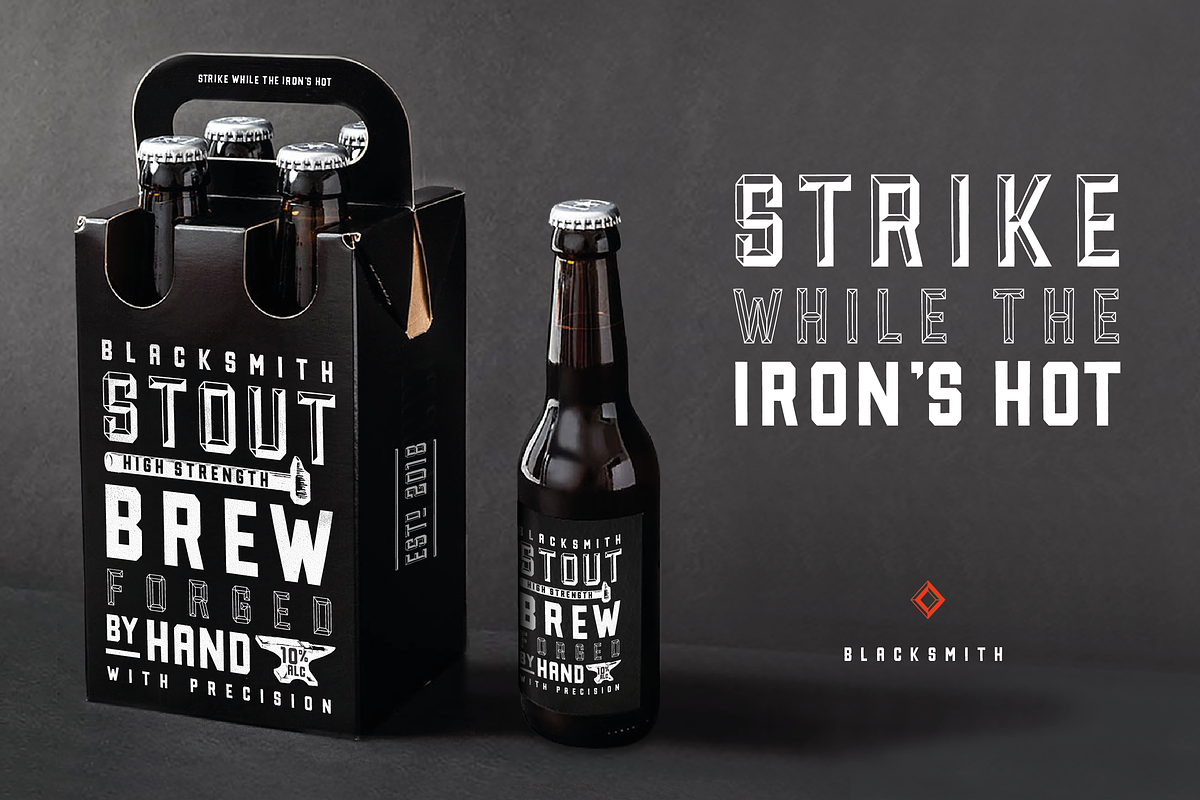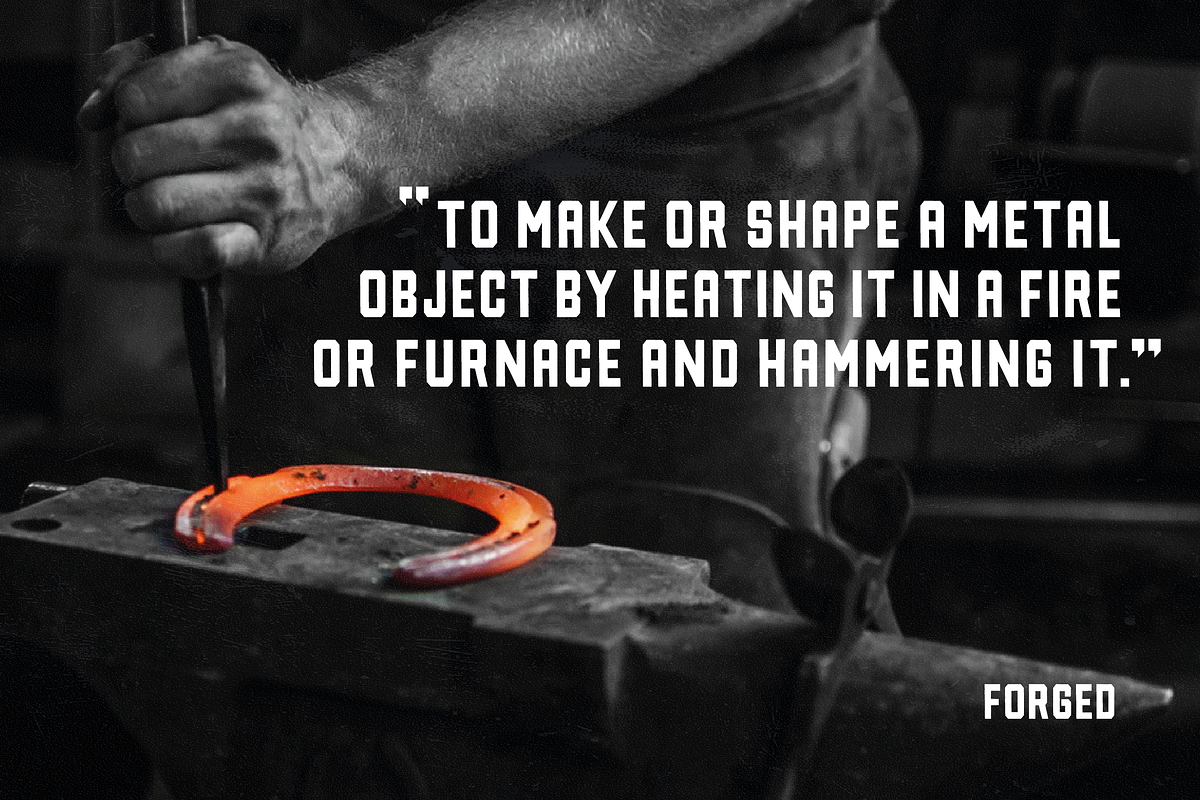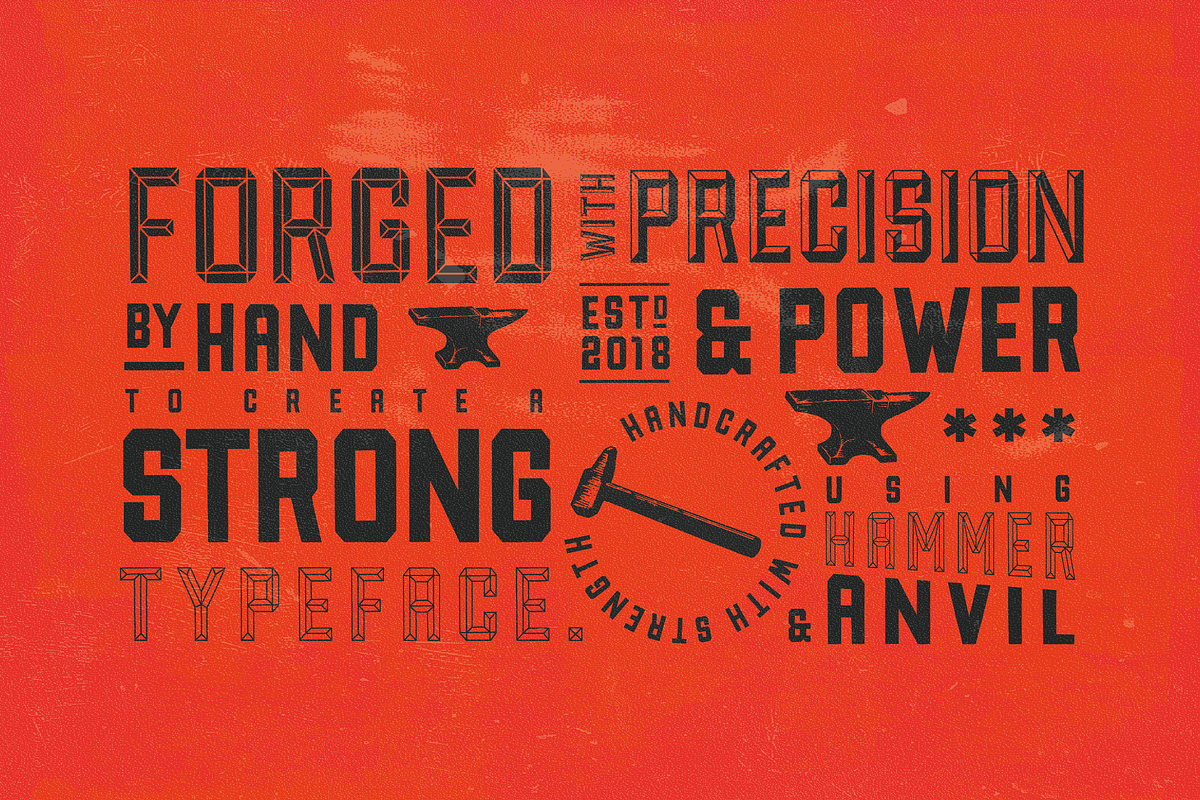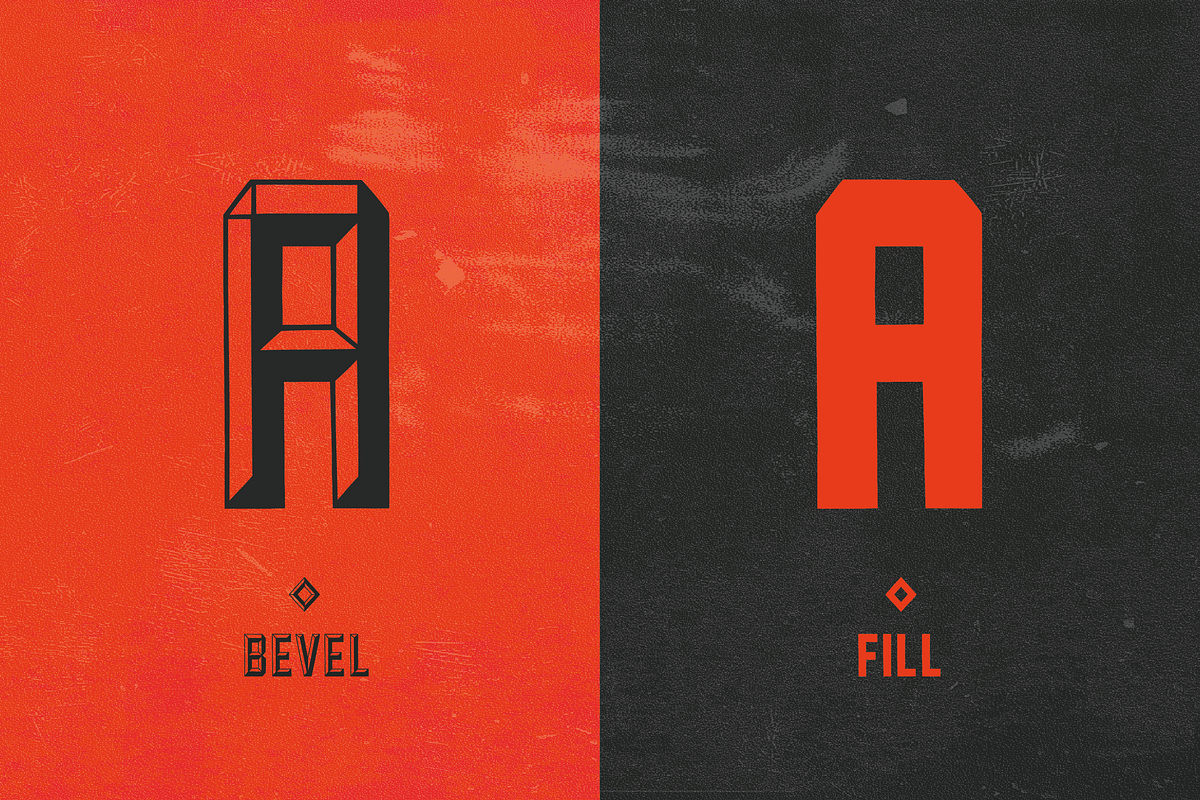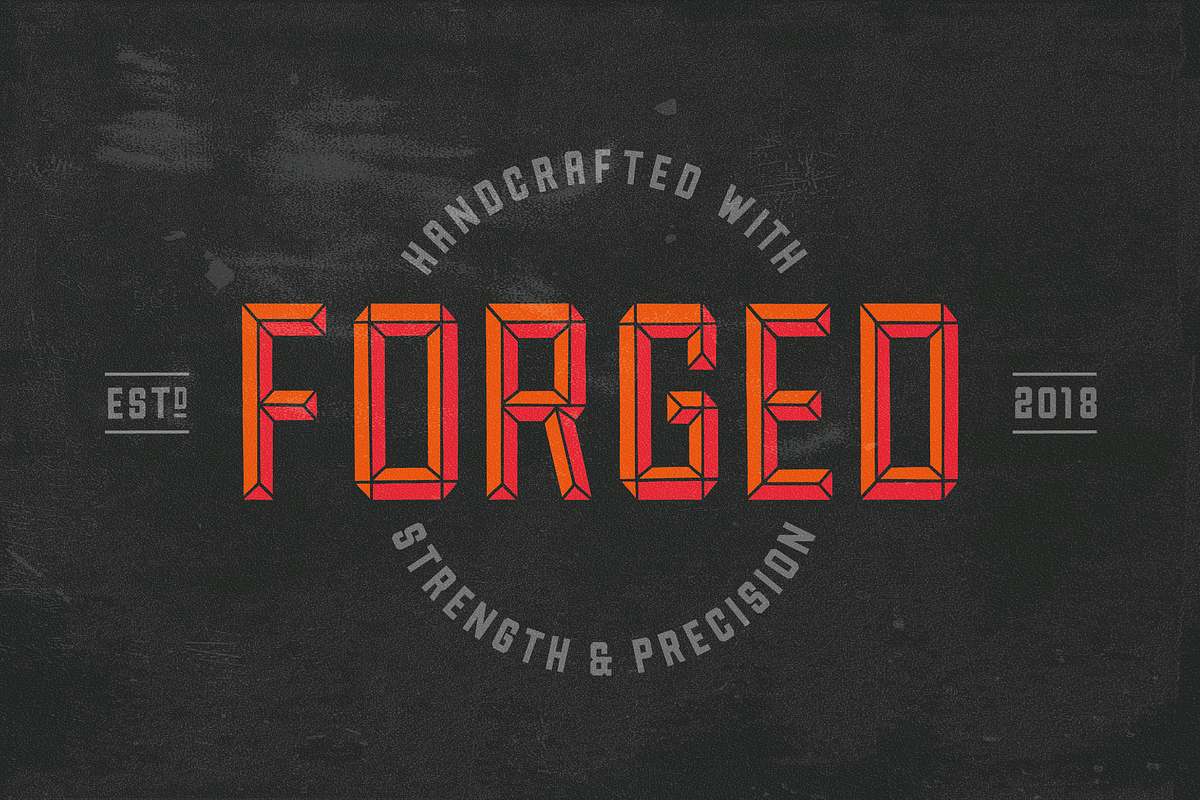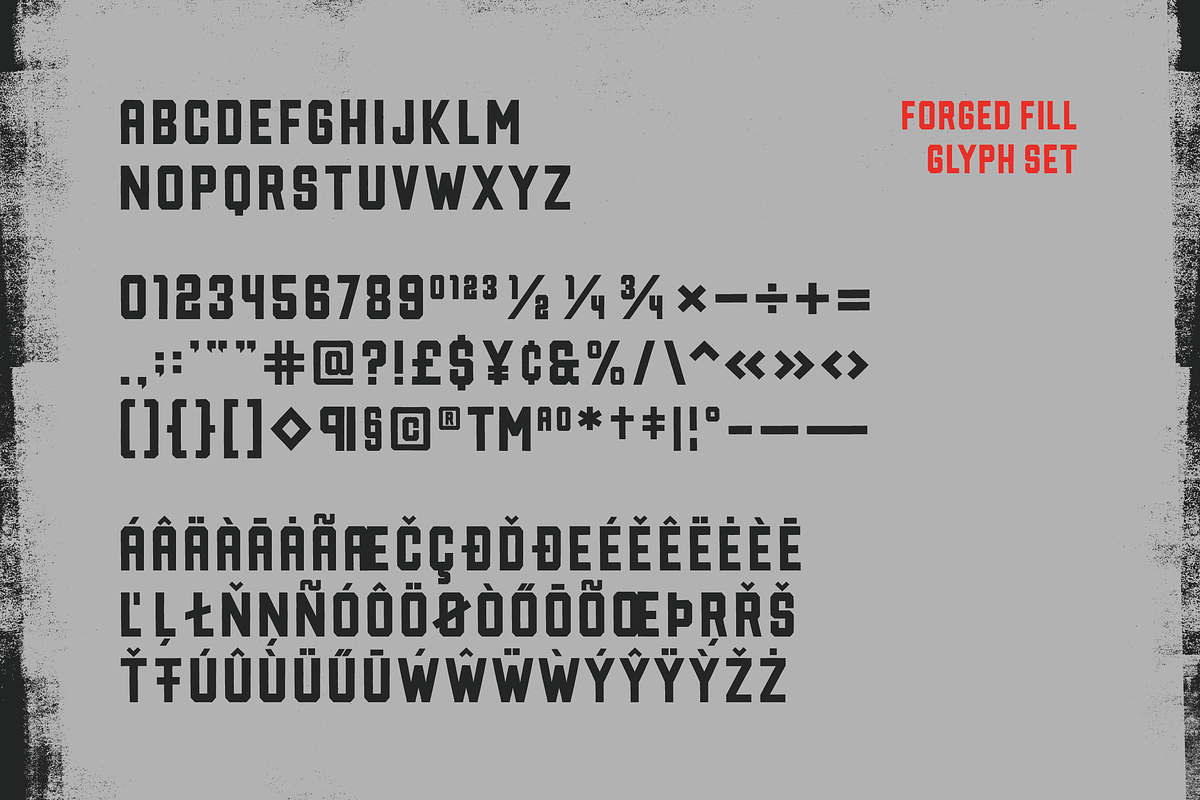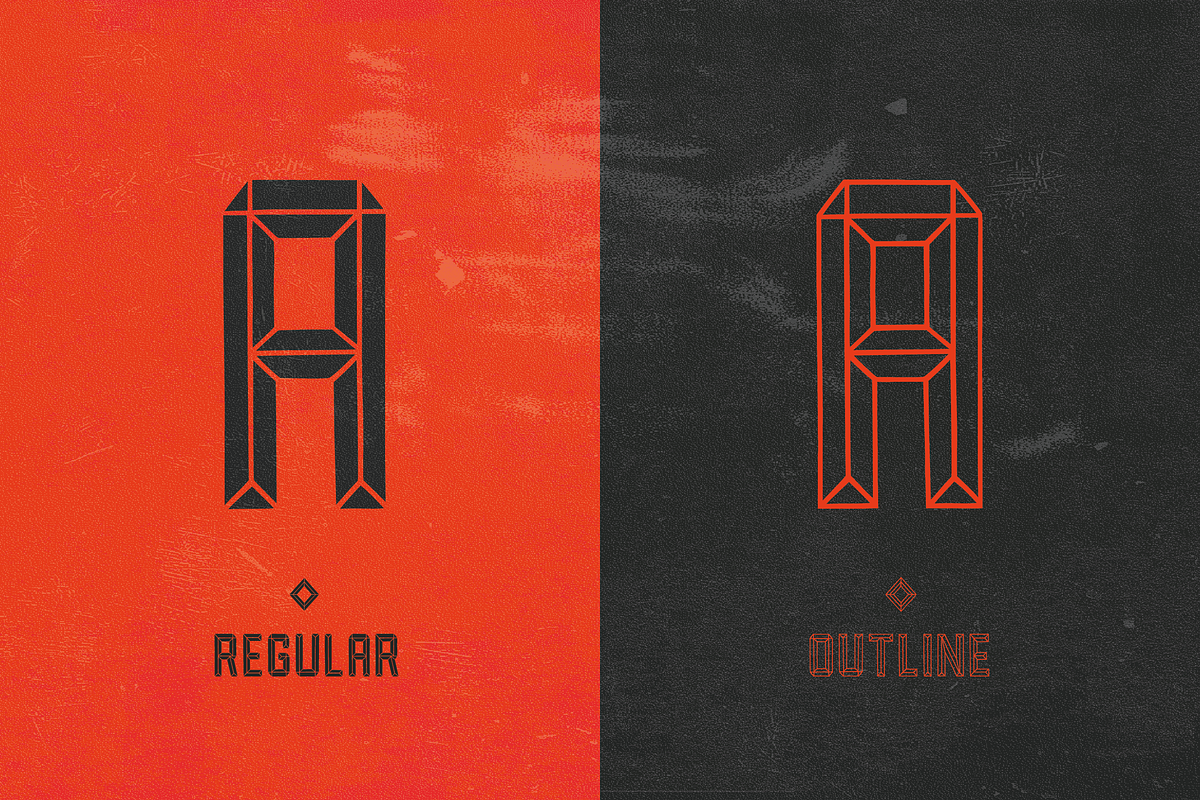
Forged Font Family
Hand forged with strength & precision – Forged is a bold, powerful typeface that stands strong. Handcrafted as if by a blacksmith, this typeface has its quirks and imperfections like any metalwork which gives it a unique character. The family consists of regular, outline, bevel and fill versions. All weights are versatile and can be used for packaging, logotype, copy and headings.
- Forged Regular
- Forged Bevel
- Forged Fill
- Forged Outline